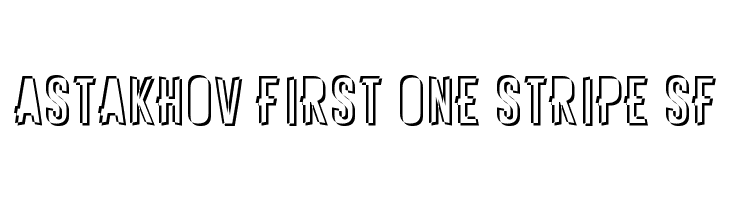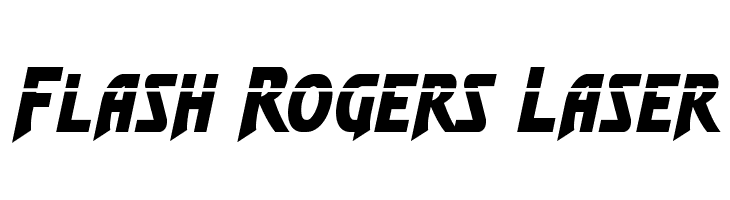
A bold, angular typeface with a futuristic and dynamic style.
A bold, italic font with a rough, textured style and dynamic energy.
A bold, playful font with a vintage flair and wavy character design.
A bold, semi-condensed typeface with a modern and impactful style.
A modern, slanted font with clean lines and a minimalist design.
A bold, italic font with a modern, digital aesthetic and sharp angles.
A bold, rugged font with jagged edges and a blocky appearance.
A bold, 3D geometric font with a digital, pixel-art style.
A bold, outlined font with a playful, bouncy style and a collegiate vibe.